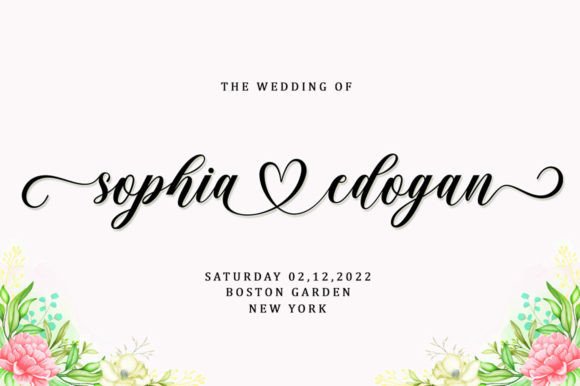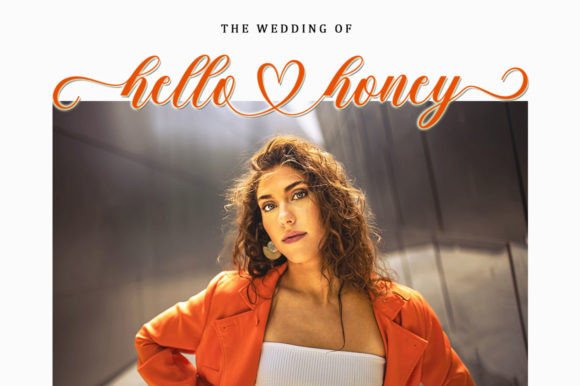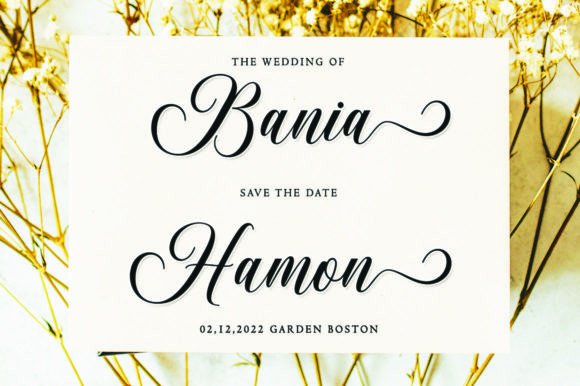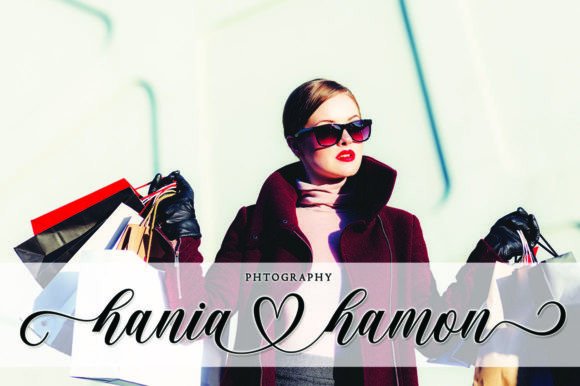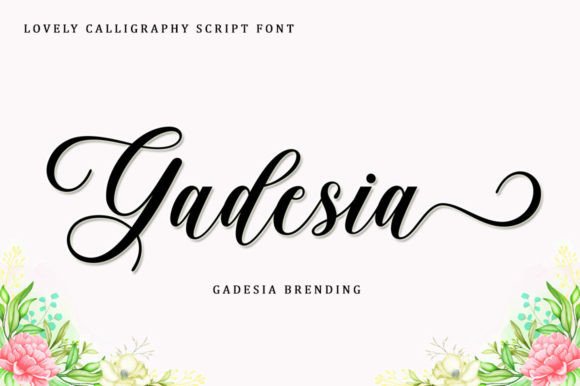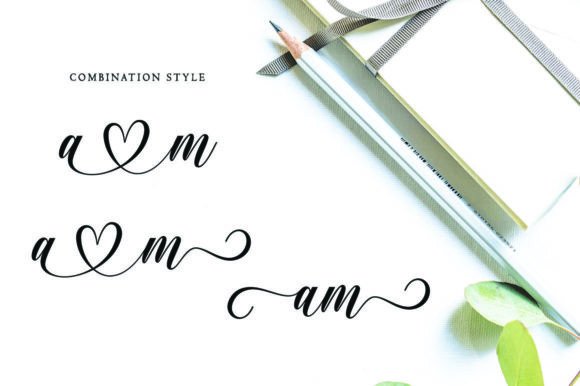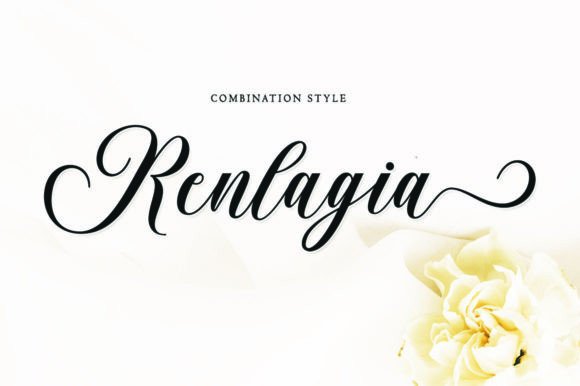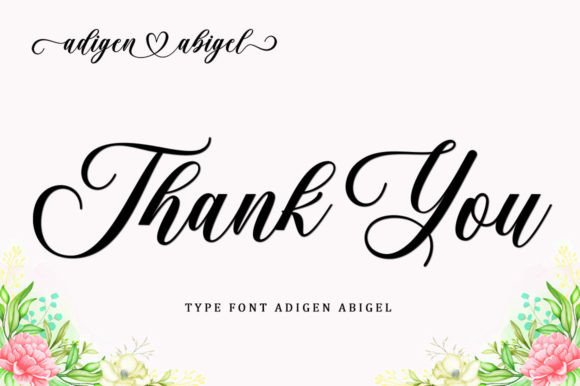
Adigen Abigel Font
About Adigen Abigel Font
Adigen Abigel Font is a modern script typeface with a charming heart detail integrated into its design. This classic copperplate decorative script combines traditional elegance with a fresh modern touch. Designed with meticulous detail, Adigen Abigel offers a cute yet sophisticated style that is both feminine and glamorous. Its luxurious letter connections ensure clean, readable text with a sensual and refined feel.
Stylish, Feminine, and Easy to Read
Adigen Abigel stands out because of its:
• Elegant and smooth letterforms
• Feminine and glamorous style
• Luxurious, flowing letter connections
• Easy readability despite its decorative nature
This makes it ideal for designers who want a balance of beauty and clarity in their script fonts.
Ideal Uses for Adigen Abigel Font
This classy font is perfect for a variety of formal and creative projects, including:
• Wedding and event invitations
• Fashion and makeup branding
• Restaurant menus and packaging
• Logos and stationery design
• Magazines, novels, and books
• Greeting cards and promotional materials
Its versatile elegance fits many design needs where sophistication is key.
Why Choose Adigen Abigel Font?
Designers love Adigen Abigel for:
• Its unique heart detail adding personality
• Classic copperplate style with a modern twist
These features make it a practical and stunning choice for high-end design work.
Add Elegance and Charm to Your Projects
Typography defines the feel of your design, and Adigen Abigel adds glamour, charm, and sophistication. Whether for elegant invitations, luxury branding, or stylish editorial content, this font brings a refined and memorable look.
In conclusion, Adigen Abigel Font is a modern and elegant script font featuring a heart detail that sets it apart. Its clean, feminine style combined with copperplate tradition makes it perfect for weddings, fashion and much more. PUA encoded for easy glyph access, Adigen Abigel is a must-have for designers seeking a classy, readable script.